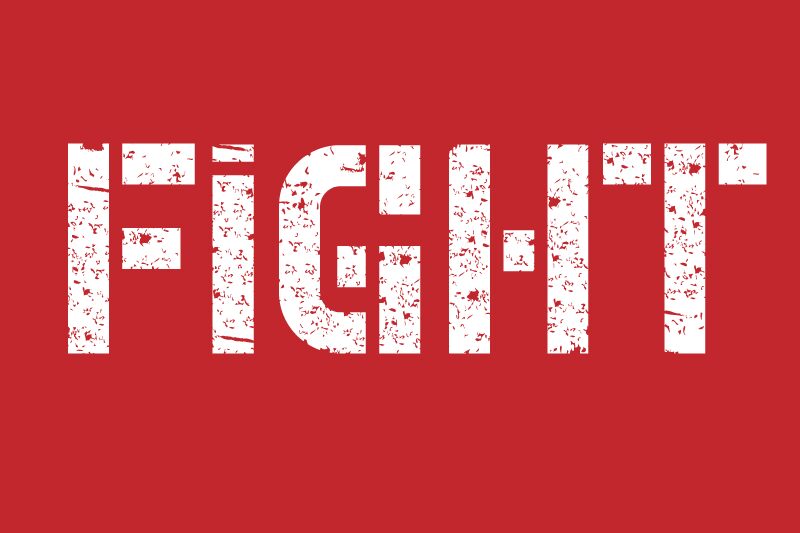
Fight Bold
Fight Bold font by Design Vector10 is a display font with an eroded, stencil, military style. Its rugged appearance and distressed texture make it suitable for designs where a bold impact and industrial vibe are needed. The font’s main feature is its strong visual presence which can help any text stand out.
Although created with graphic design projects in mind, users may find it equally useful in branding, packaging, posters or social media covers. It’s also an interesting resource for flyers, apparel prints, tattoos or book covers. Enjoy using this free font as well on anything else you aim to complete!